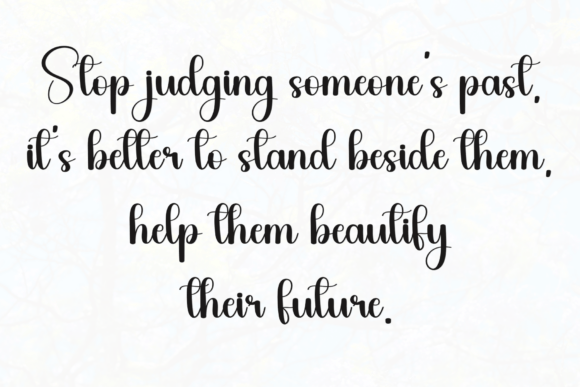
Introducing Simple Launching Font: A Unique and Versatile Typeface
The world of typography has witnessed a significant evolution over the years, with numerous font styles emerging to cater to diverse design needs. Among these, the Simple Launching font stands out for its soft, unique touch and distinctive strokes that lend it a special character. Designed to be meaningful and versatile, this beautiful and eye-catching font is perfect for a wide range of creative projects, including design, crafts, and other artistic endeavors.
Key Features of Simple Launching Font
- Unique and Soft Touch: The Simple Launching font boasts a soft and unique touch that sets it apart from other typefaces. Its gentle curves and smooth lines make it visually appealing and perfect for designs that require a subtle yet impactful font.
- Distinctive Strokes: The font’s distinctive strokes give it a special character, making it meaningful and versatile for future use. These strokes can be used to add emphasis or create a unique visual identity for a brand or design project.
- Variety of Characters: The Simple Launching font comes with a range of characters, making it perfect for design projects, crafts, and other creative works. The font’s character set includes uppercase and lowercase letters, numbers, and special characters, ensuring that designers have ample options to work with.
Use Cases for Simple Launching Font
The Simple Launching font is ideal for a wide range of design projects, including:
- Branding and Identity: The font’s unique and soft touch makes it perfect for creating brand identities, logos, and marketing materials.
- Graphic Design: The font’s versatility and range of characters make it suitable for various graphic design projects, including brochures, flyers, and posters.
- Crafts and DIY Projects: The Simple Launching font is also great for crafts and DIY projects, such as handmade cards, gift tags, and other paper crafts.
- Digital Design: The font’s compatibility with various applications makes it suitable for digital design projects, including website design, social media graphics, and email marketing campaigns.
Benefits of Using Simple Launching Font
The Simple Launching font offers several benefits to designers, including:
- Enhanced Visual Appeal: The font’s unique and soft touch adds a touch of elegance and sophistication to designs, making them more visually appealing.
- Increased Versatility: The font’s range of characters and compatibility with various applications make it a versatile addition to any design project.
- Improved Brand Identity: The font’s distinctive strokes and special character make it perfect for creating a unique brand identity that stands out from the competition.
Tips and Tricks for Using Simple Launching Font
To get the most out of the Simple Launching font, here are some tips and tricks to keep in mind:
- Experiment with Font Sizes: The Simple Launching font looks great in various font sizes, so don’t be afraid to experiment and find the perfect size for your design.
- Pair with Other Fonts: The font pairs well with other fonts, so try combining it with other typefaces to create a unique and visually appealing design.
- Use for Emphasis: The font’s distinctive strokes make it perfect for adding emphasis to certain words or phrases in your design.
In conclusion, the Simple Launching font is a beautiful and eye-catching typeface that offers a unique and soft touch, making it perfect for a wide range of design projects. Its compatibility with various applications, including Windows and open-source platforms, makes it a versatile addition to any designer’s font library. With its range of characters, distinctive strokes, and special character, this font is sure to enhance your designs and make them appealing to many audiences across different artistic and creative fields.